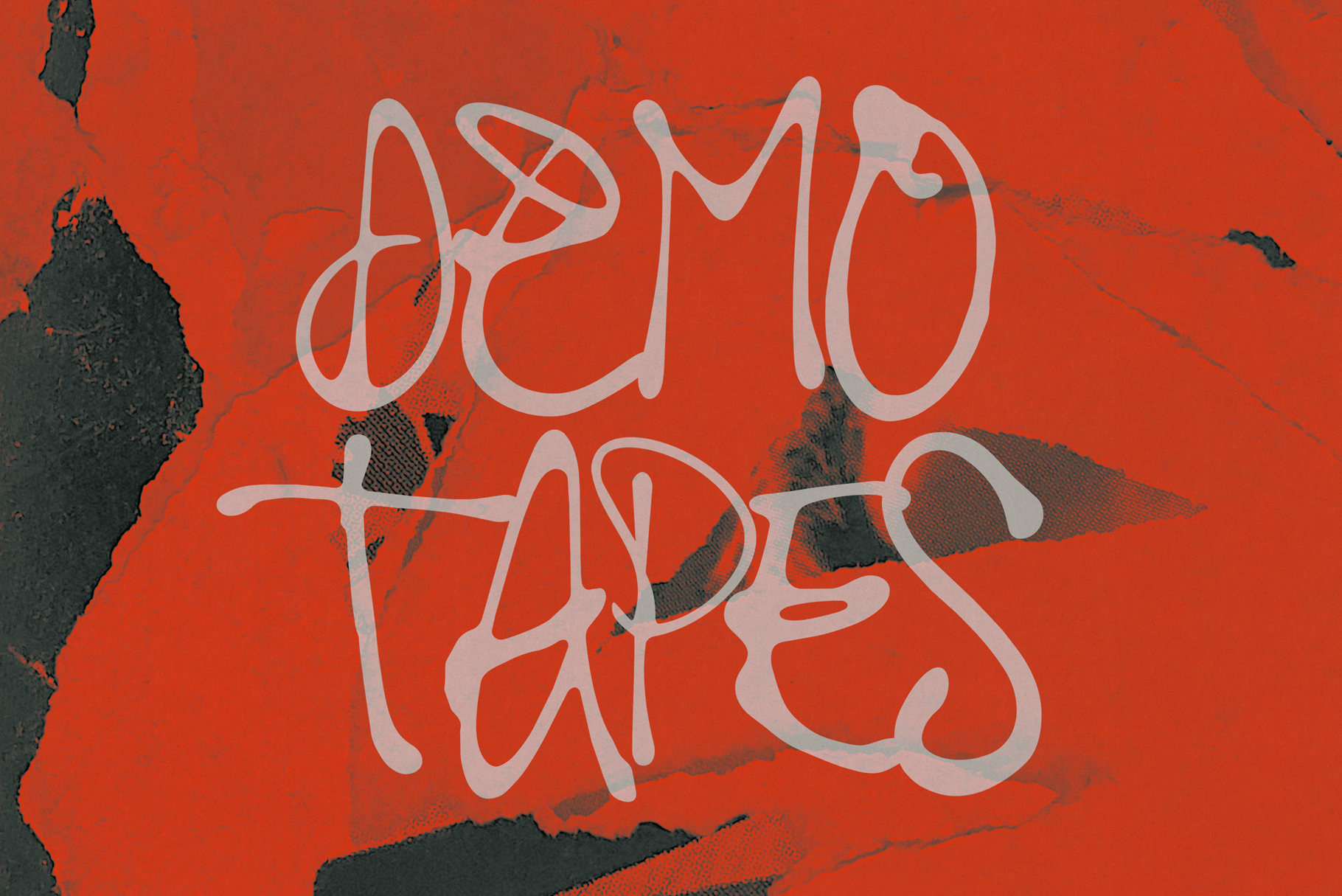
Demo Tapes Marker Font
Demo Tapes is my new hand drawn display font! Inspired by old school demo/mixtapes when all you needed was a marker pen. Each letter has alternative options to keep it looking distinctly hand-rendered. Perfect for branding, logos, merchandise, posters, menus, social media posts and so much more.
Full alphabet (Uppercase and Lowercase with plenty of alternative letter options)
Numbers and essential symbols